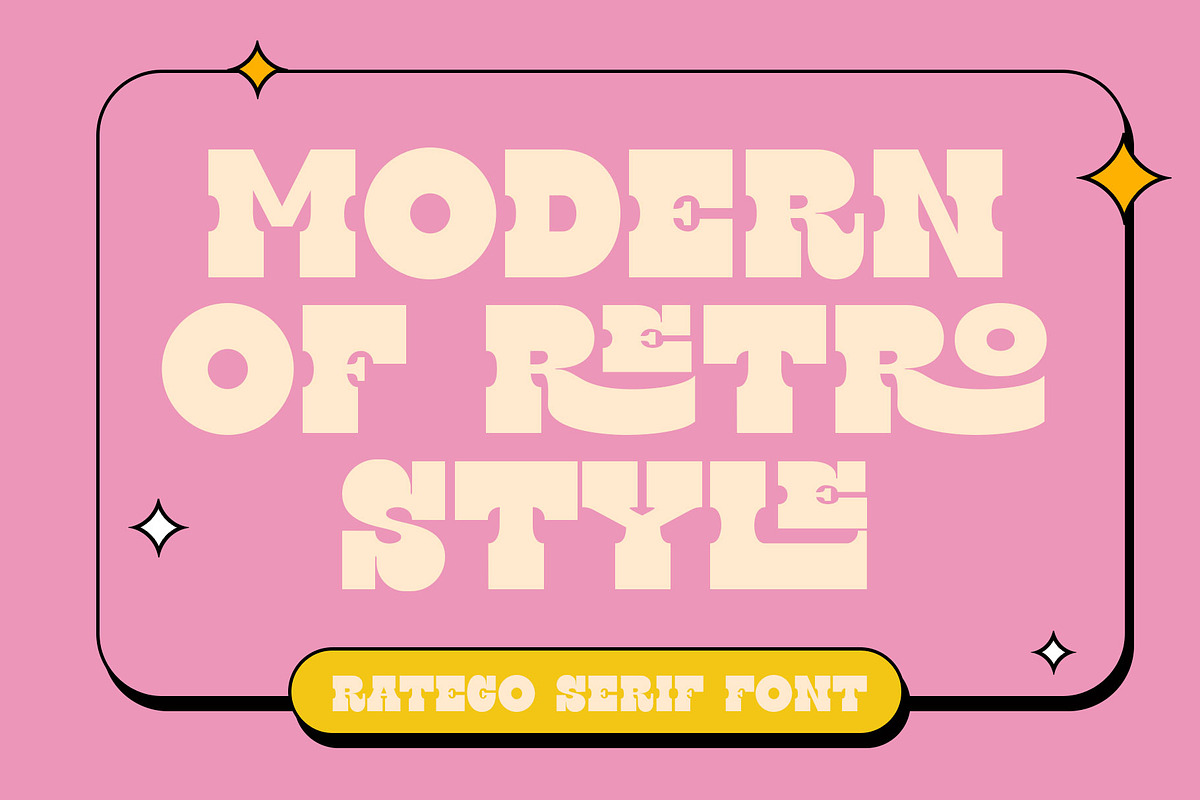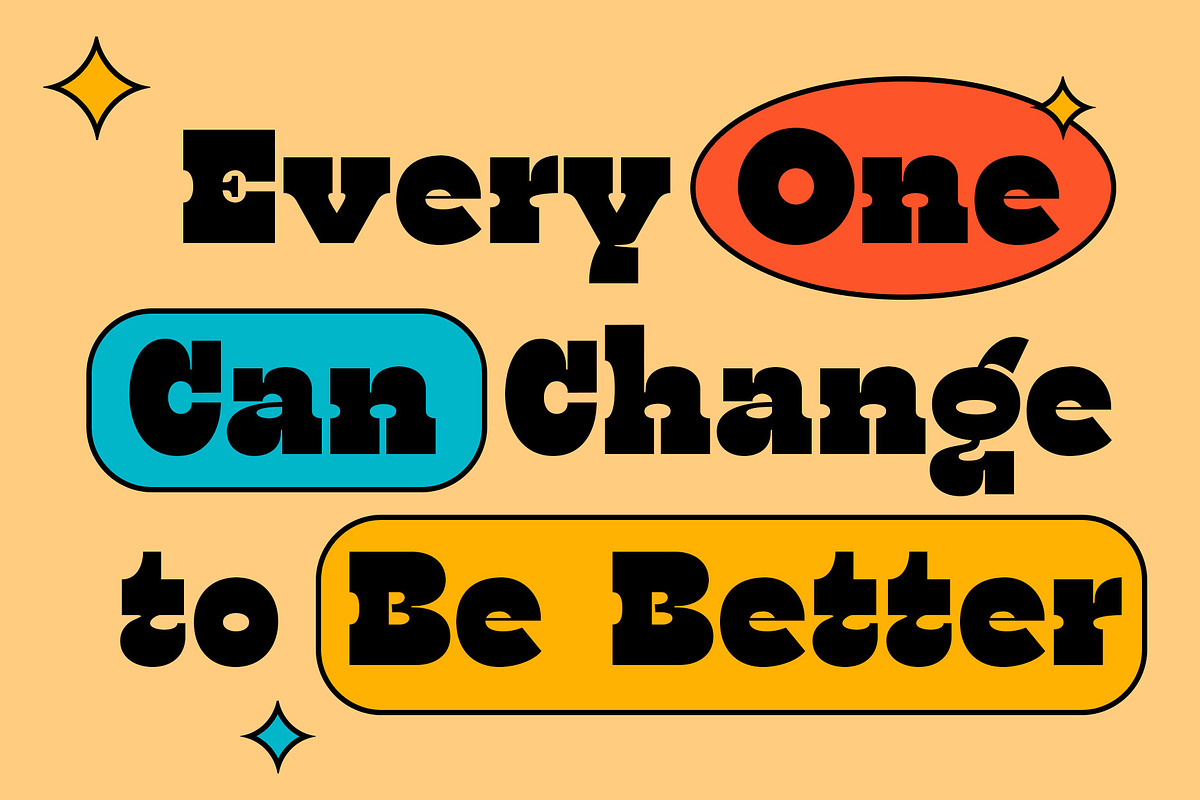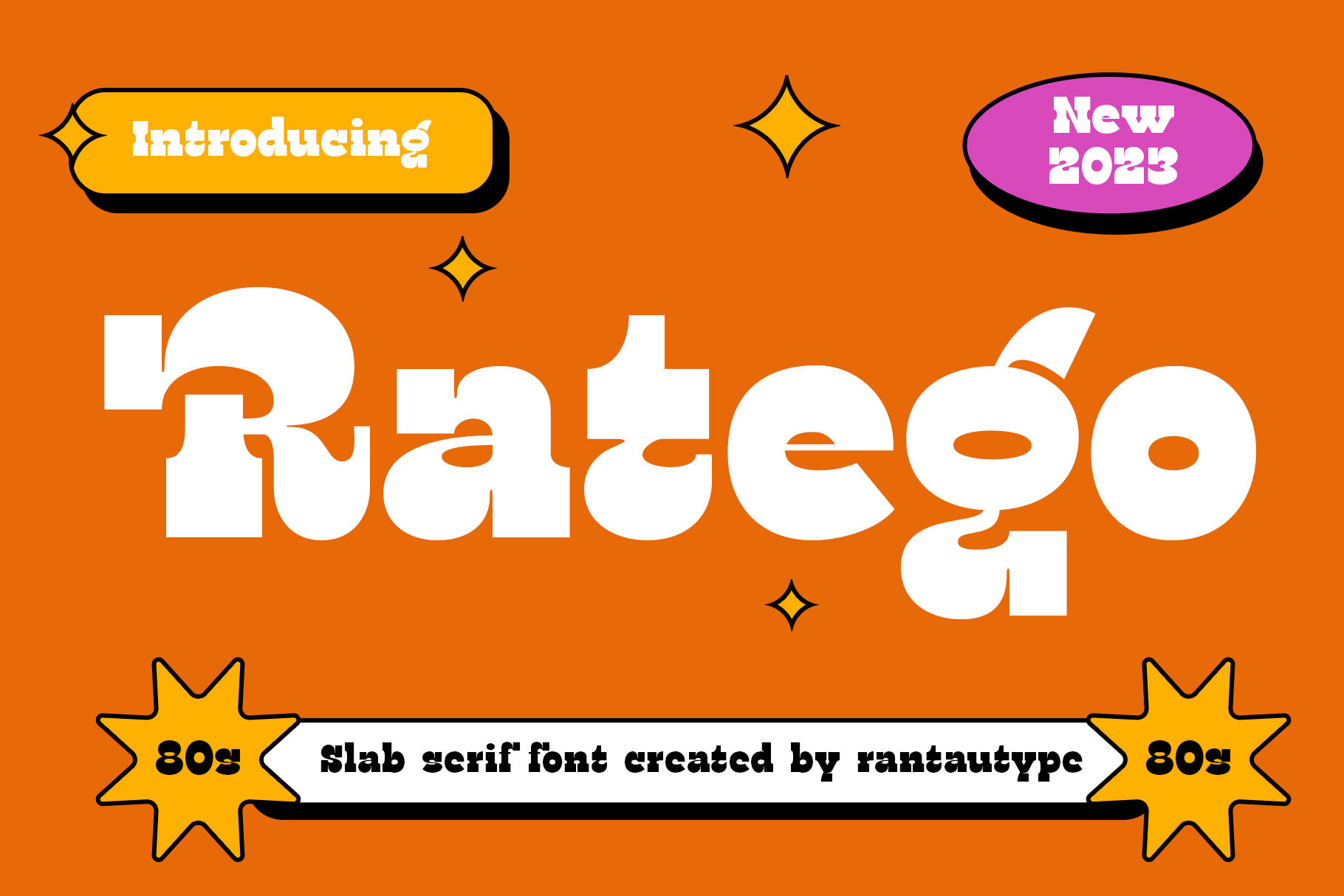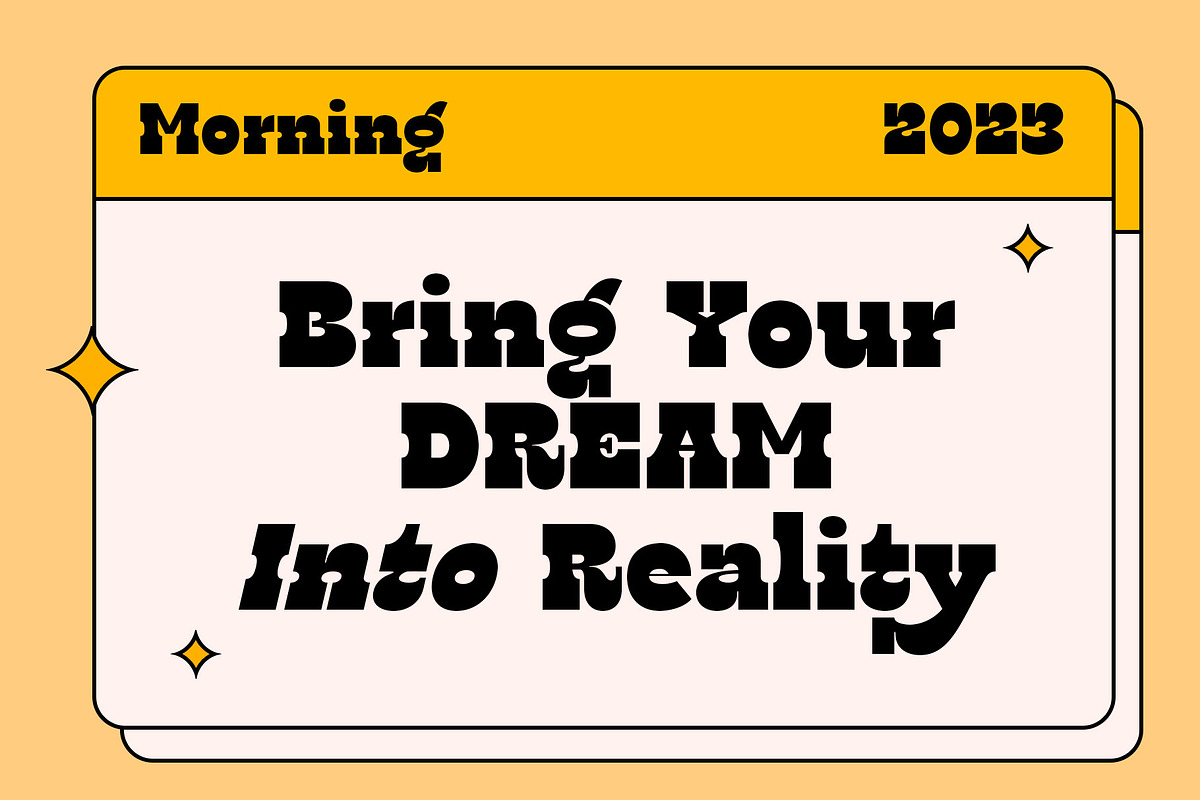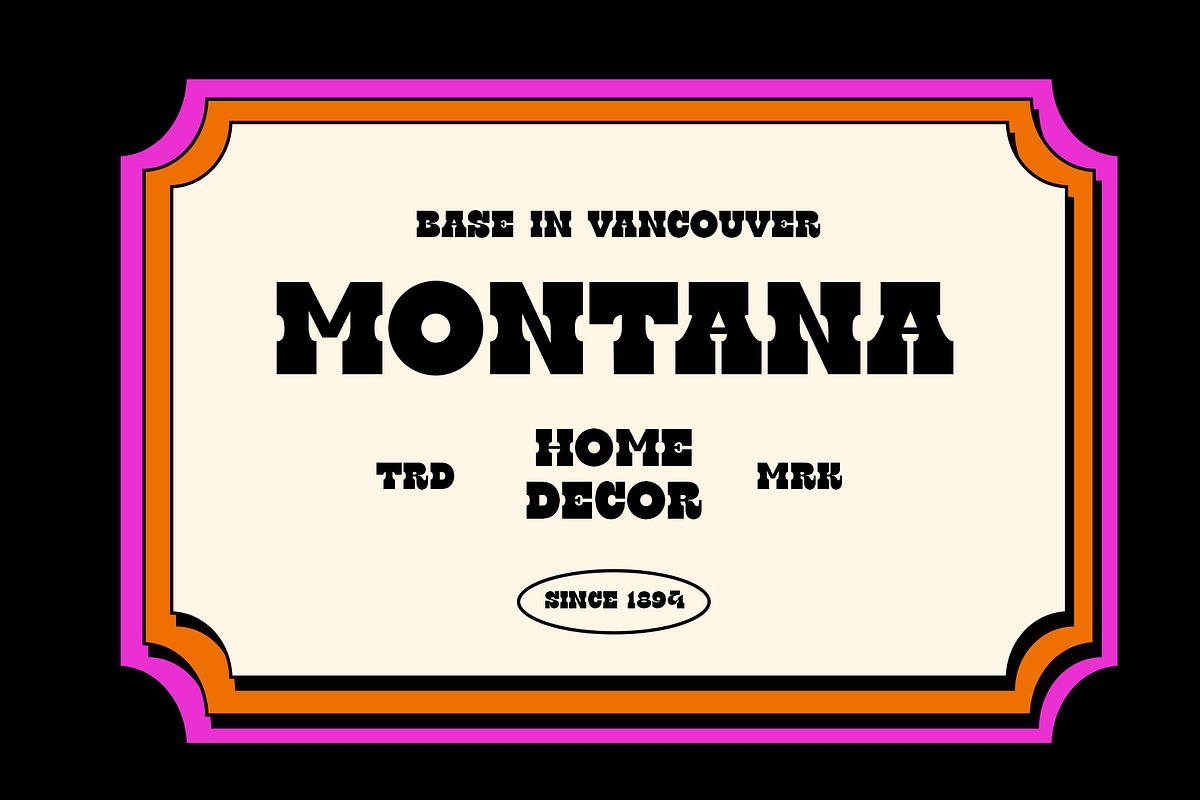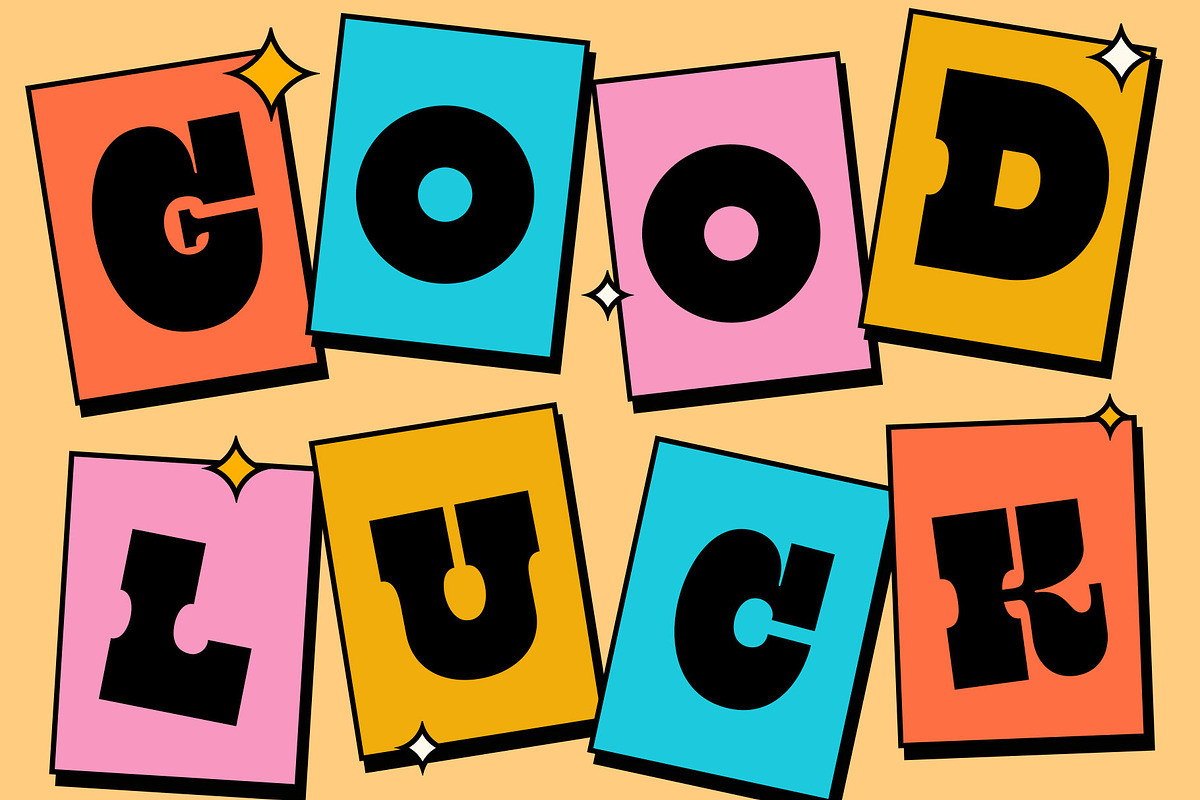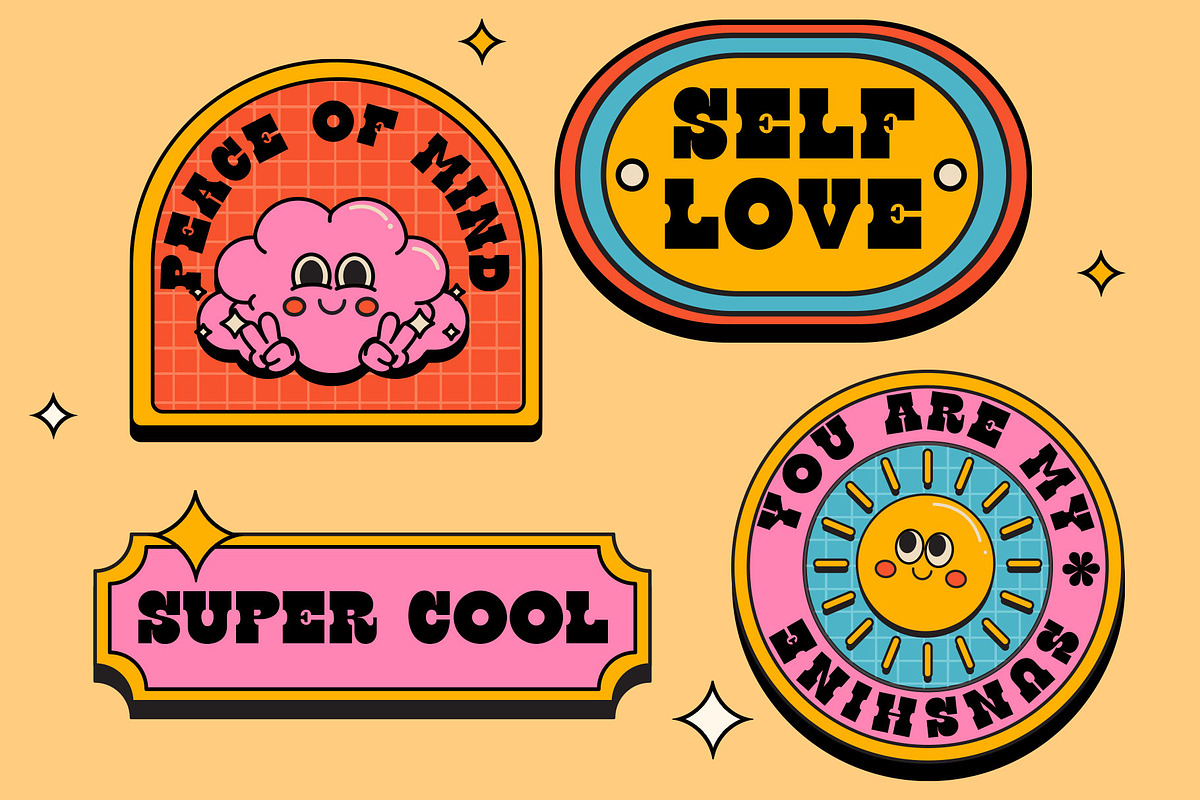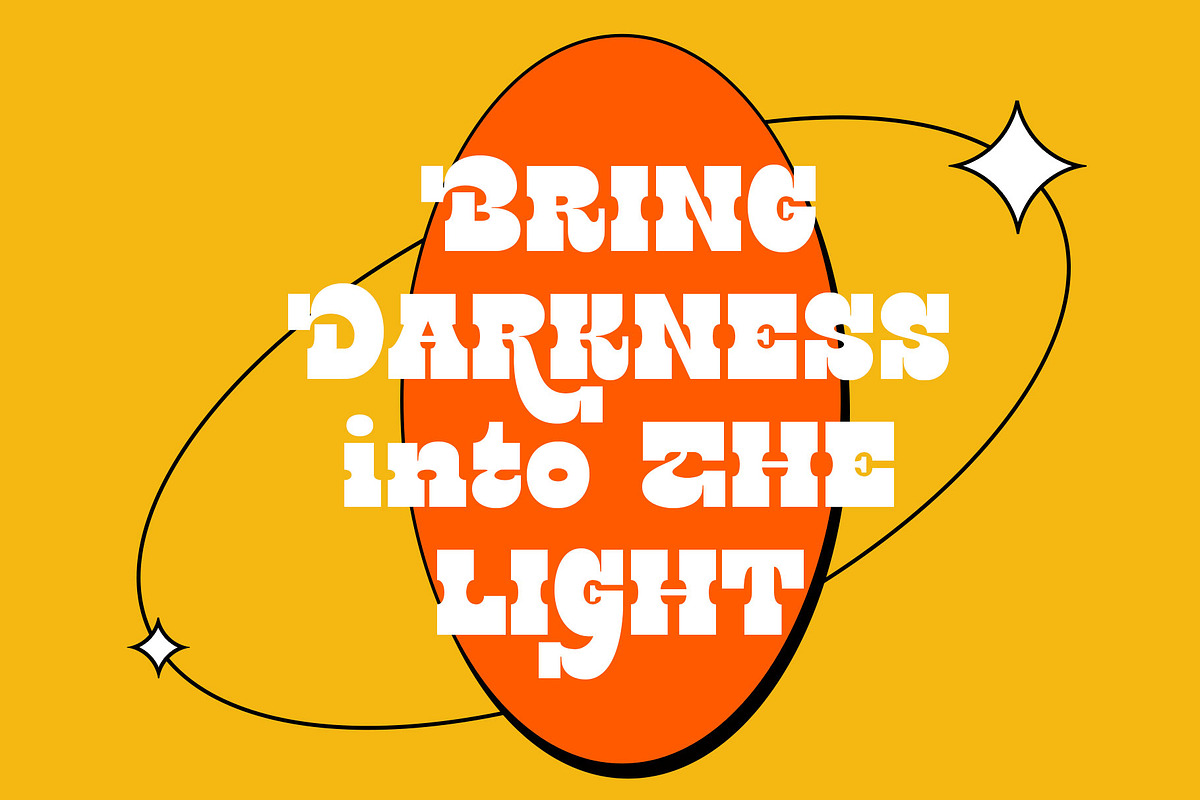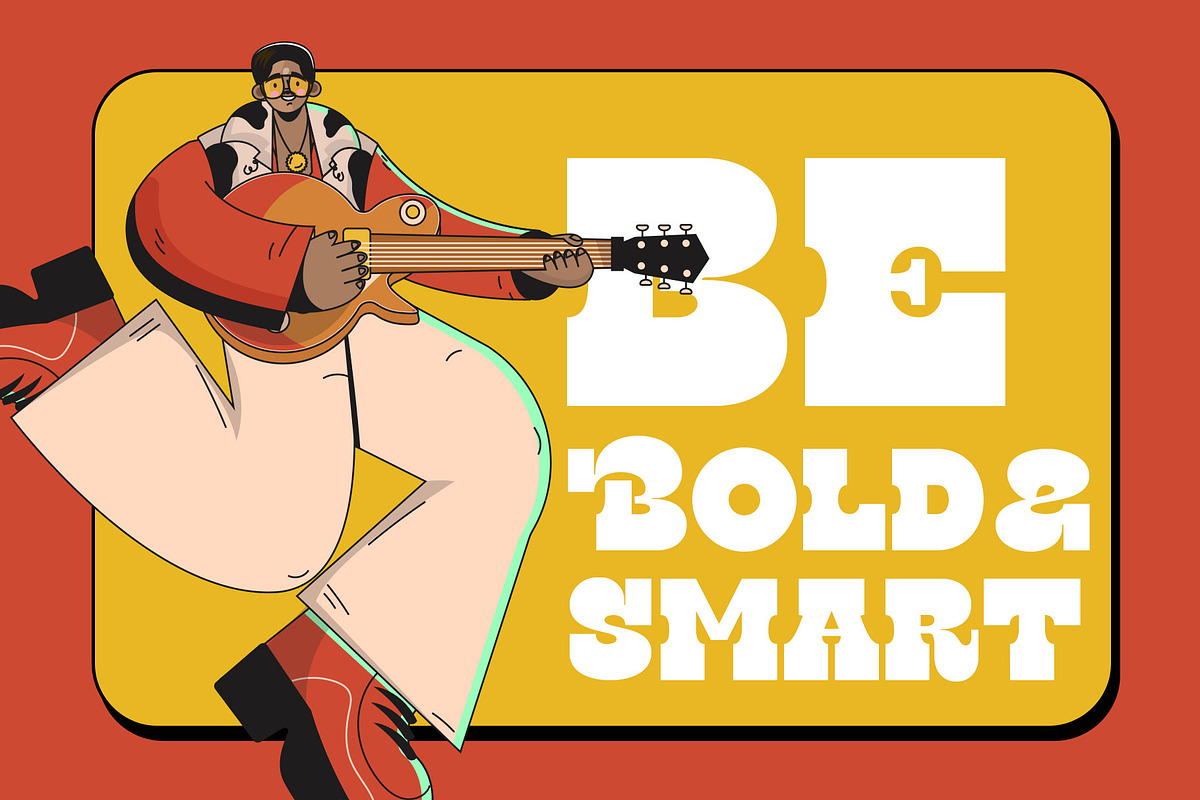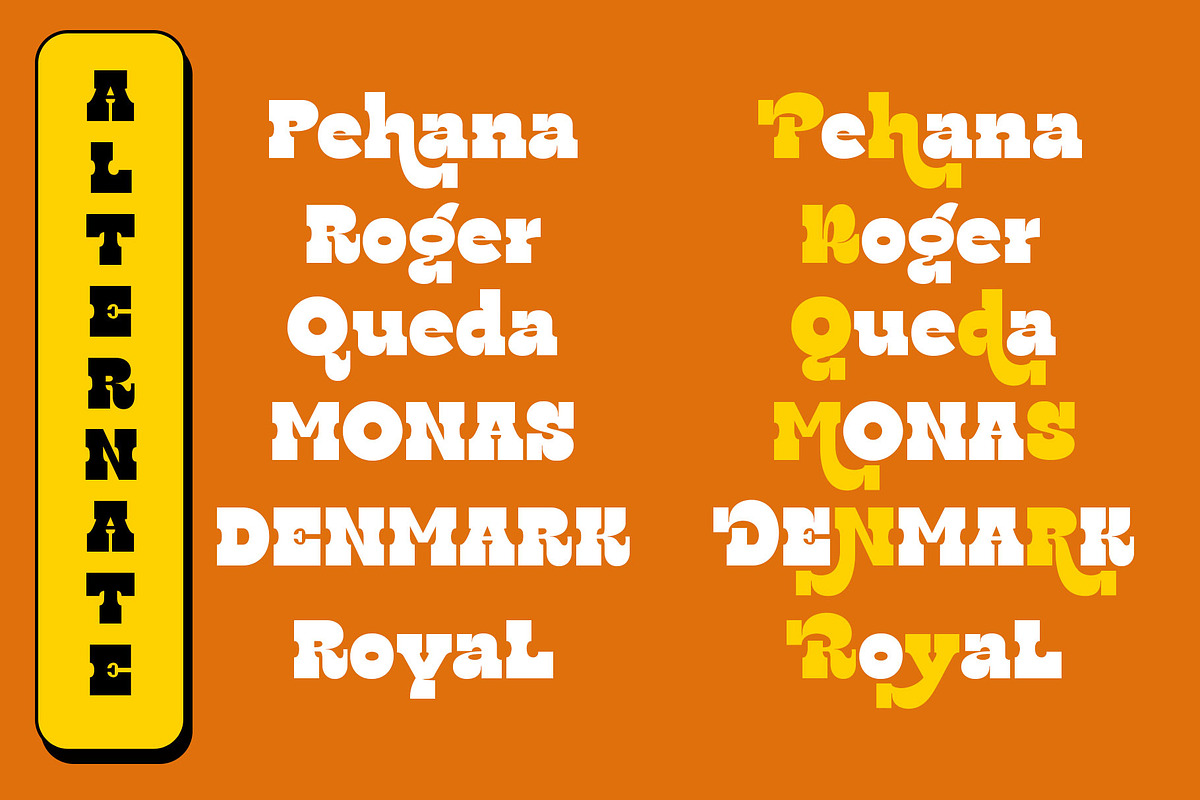
Ratego Vintage Slab Serif Font
Ratego is a vintage font that bold curve make it look Unique, fungky, fun, modern, and versatile serif Font. Come with more alternate and ligature you can mix and max to create a more stunning display.
Ratego separate in reguler and italic, is a beautiful choice for any creative endeavor, creating fun, modern, chic, lifestyle design such as logos, title, cover, branding, display and magazine, and more. Now you have can choice ratego to make your branding.
- Alternate and Ligature